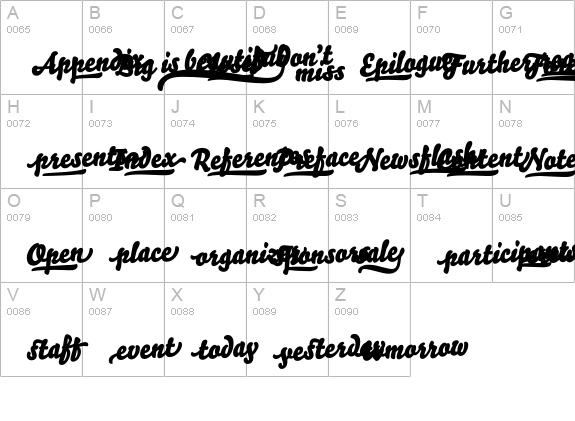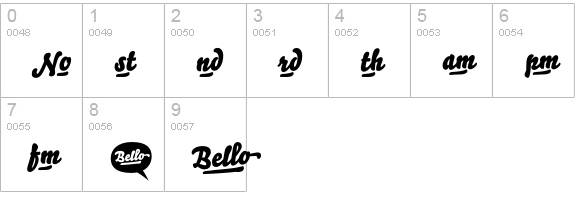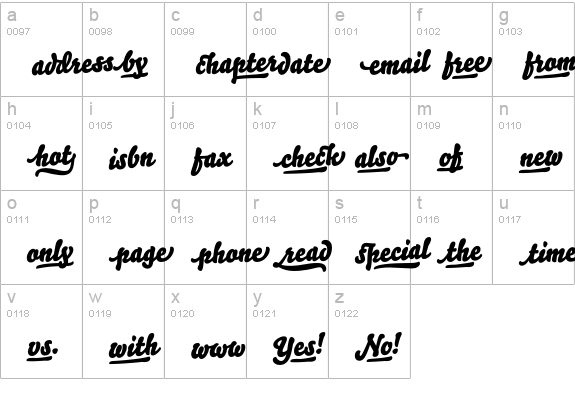
Bello-WordsBody Font Details
Bello-WordsBody font is a stunning typeface that exudes elegance and sophistication. With its delicate curves and graceful lines, this font is perfect for adding a touch of refinement to any project. Whether you're designing invitations, creating a logo, or crafting a piece of digital art, Bello-WordsBody will elevate your work to new heights. What's even better is that Bello-WordsBody is completely free to download at FontsMarket.com. Yes, you read that right - this exquisite font can be yours at no cost at all. So why wait? Enhance your designs with the beauty of Bello-WordsBody today!